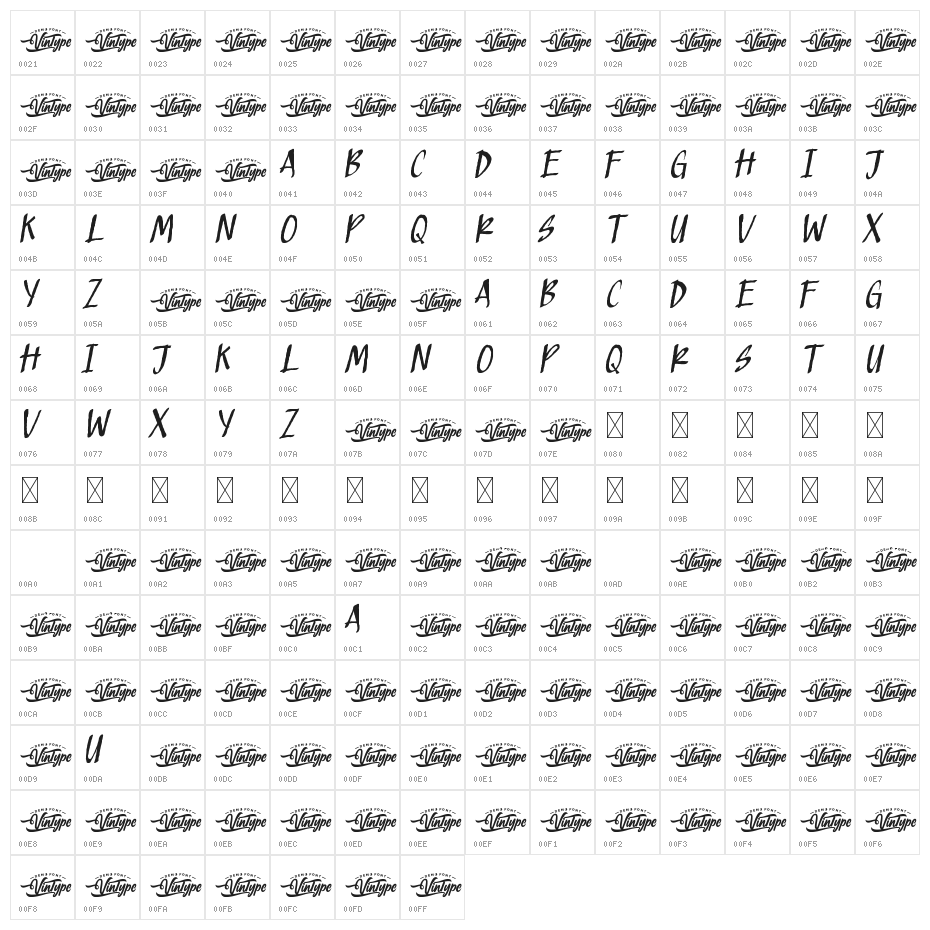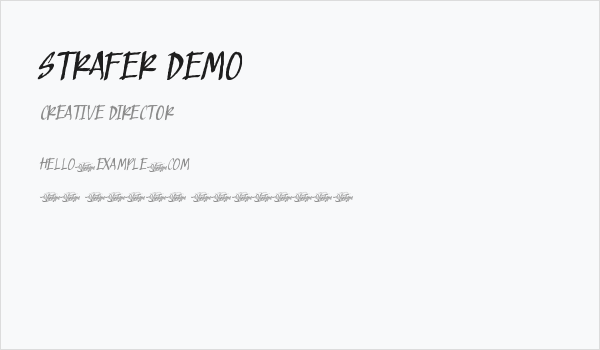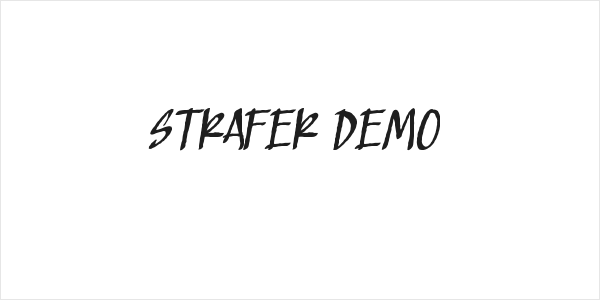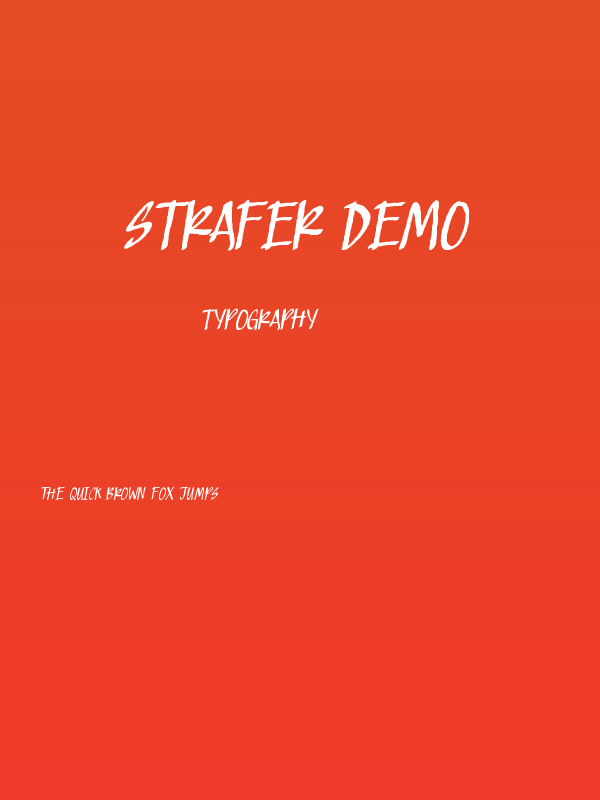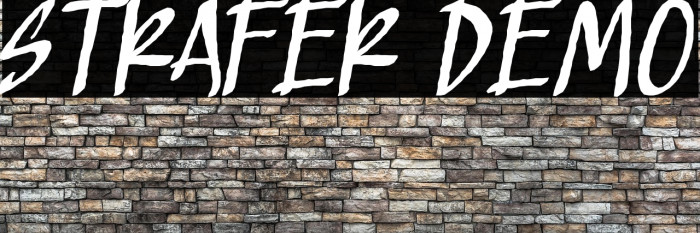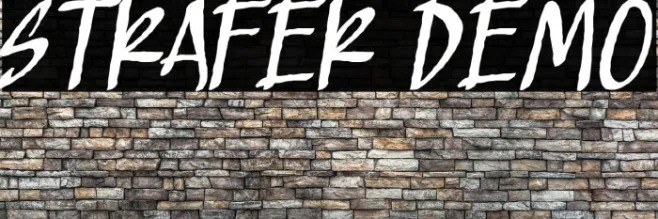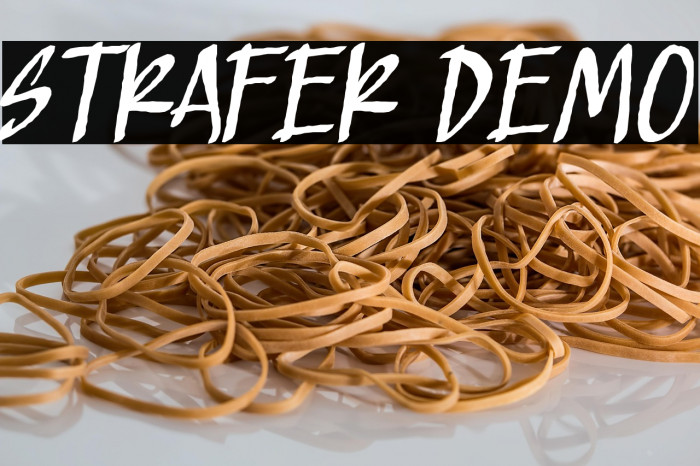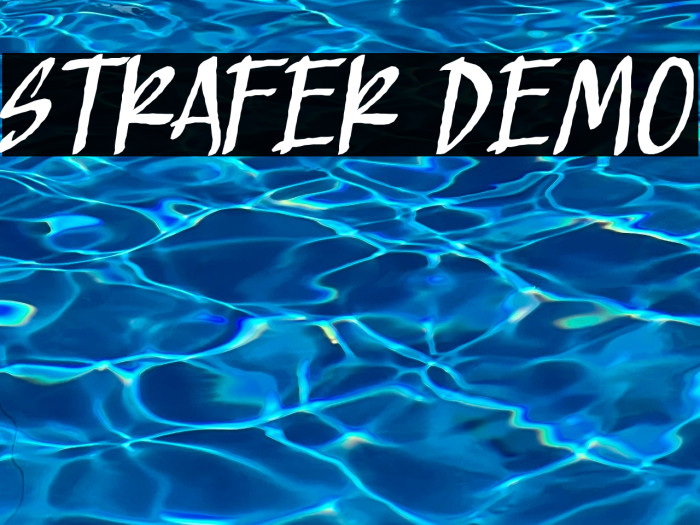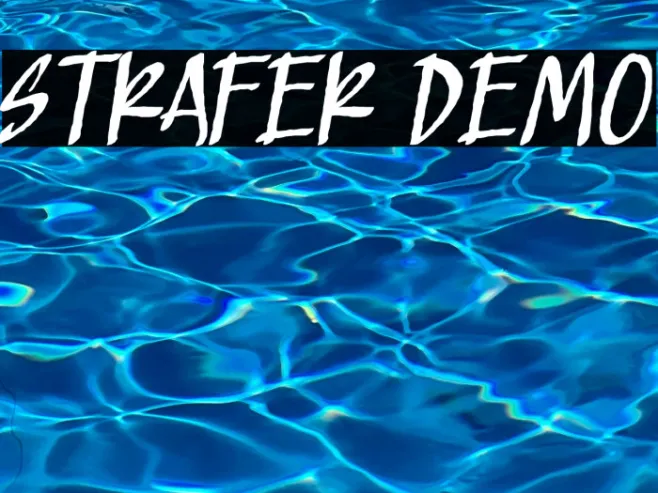
Strafer Demo Font
Strafer Demo Description
This font features a dynamic and energetic script style, characterized by its bold and expressive strokes. The letters are slightly slanted, giving a sense of motion and fluidity. The uppercase and lowercase letters maintain a consistent style, with sharp edges and a hand-drawn appearance. The numbers and special characters follow the same aesthetic, ensuring a cohesive look across all text elements. This font's design is both modern and artistic, making it suitable for a variety of creative applications.
| Proposed Projects | Ideal for branding, logos, posters, and any project that requires a bold and artistic touch. |